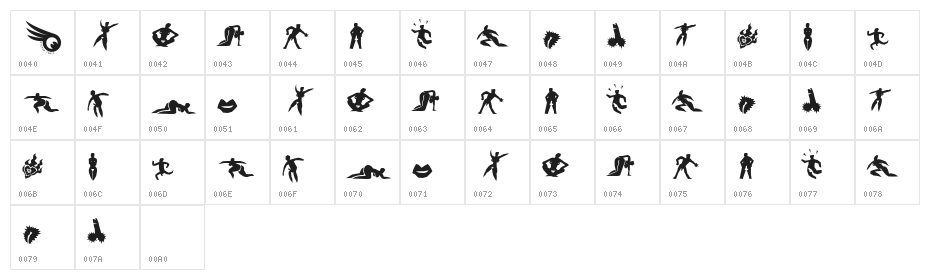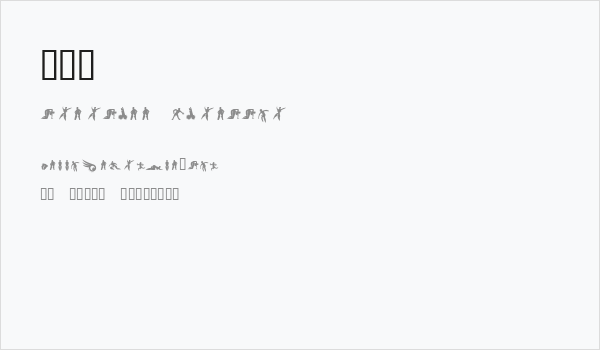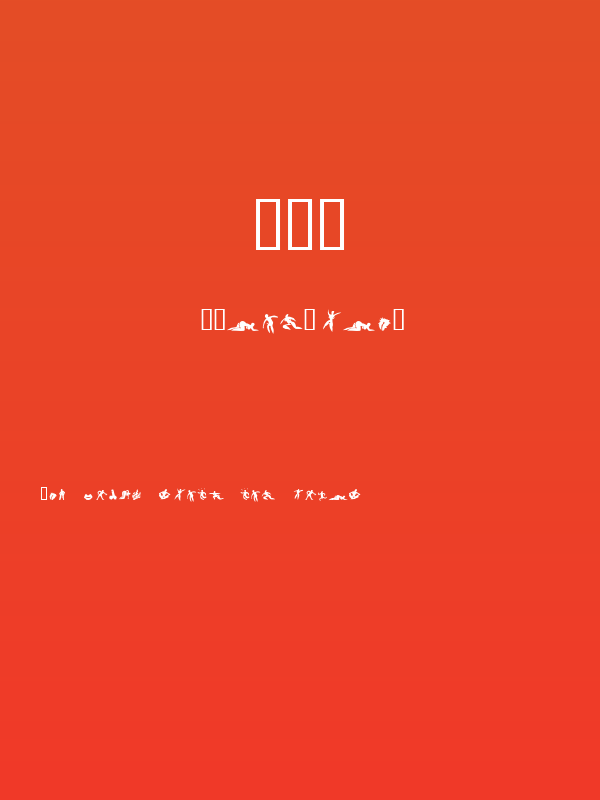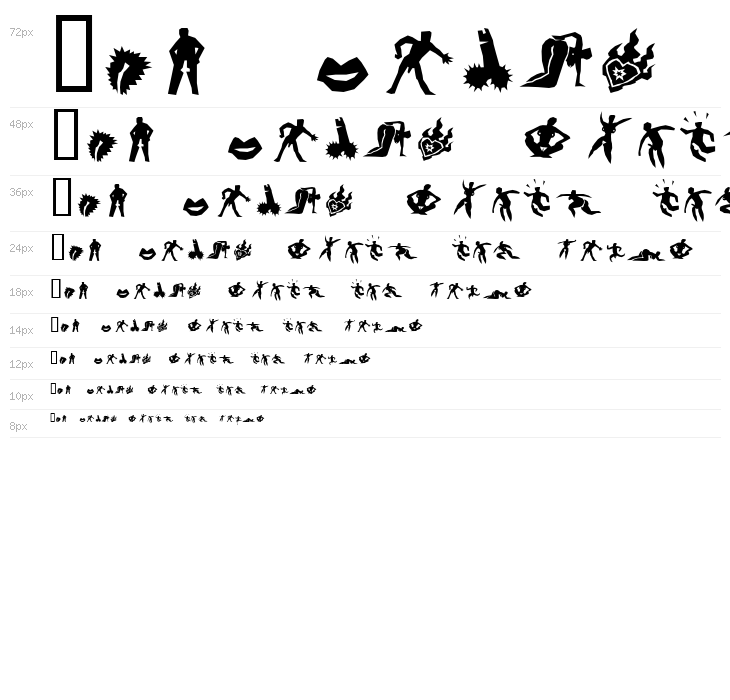
XXX Font
| 整体风格 | Decorative, Playful, Thematic |
| 使用场景 | Headlines, Posters, Themed graphics, Logos |
| 推荐项目 | Comic book titles, superhero-themed party invitations, posters, playful branding, event flyers. |